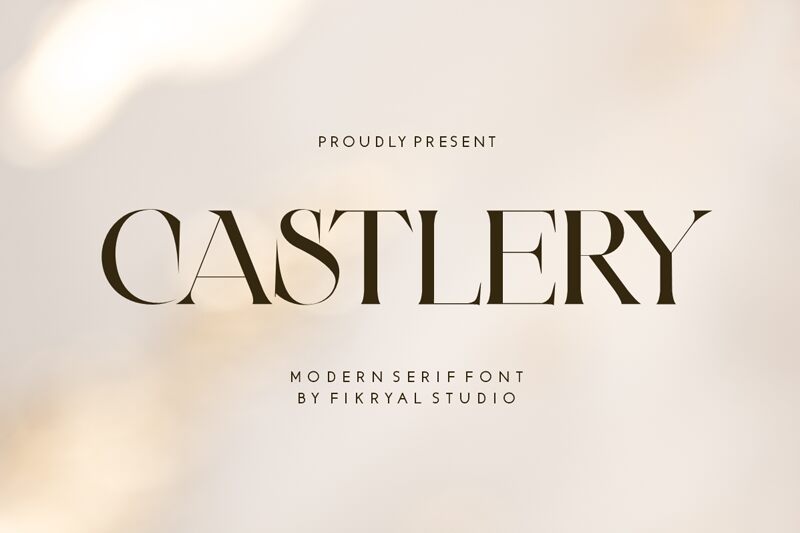
The Fikryal studio’s Castlery font is a classic beauty with its delicate serifs. The free personal use only typeface grabs attention by contrasting strong and weak lines dramatically so that any work can be more refined. This is done through curving curves against cutting corners which gives it an updated feel while still having some old school charm in there too – perfect for top end branding or editorial design.
Castlery is great for luxury brands, wedding invites or even magazine headers because it adds a touch of elegance to visual communication. With aesthetic adaptability combined with being freely downloadable this makes designers able to save money but not at the expense of quality.
Make your designs better by using the distinguished presence of this font – Castlery should definitely be in every typographer’s toolkit!